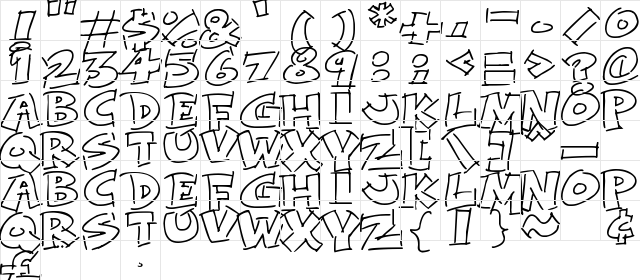
Rough Comic Outlines Regular
Design Context for Rough Comic Outlines Typeface
Rough Comic Outlines embraces imperfection — its rough, textured character adds raw authenticity to designs that want to feel lived-in and unconventional.
Suited to punk-influenced zines, underground music branding, streetwear, and raw, anti-corporate design.
Pro Tip: Pair Rough Comic Outlines with intentionally raw or lo-fi design elements. Fighting against it with overly polished surroundings will undermine its personality.